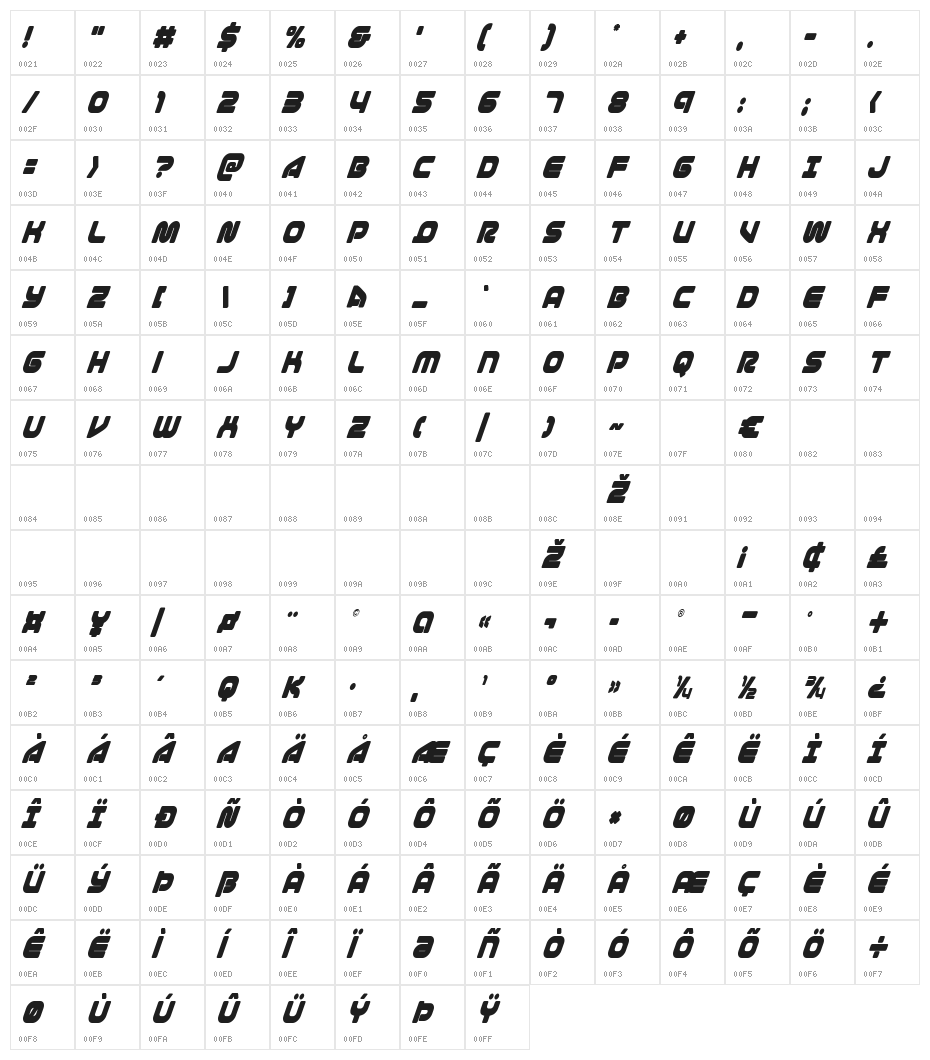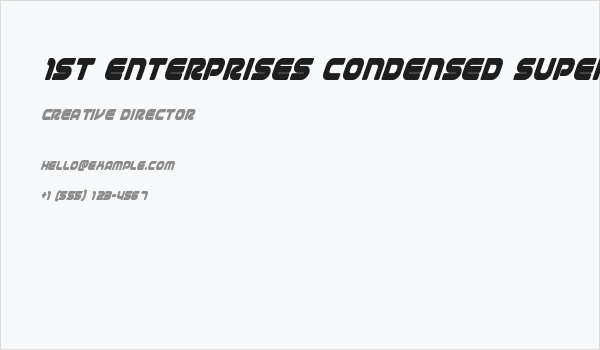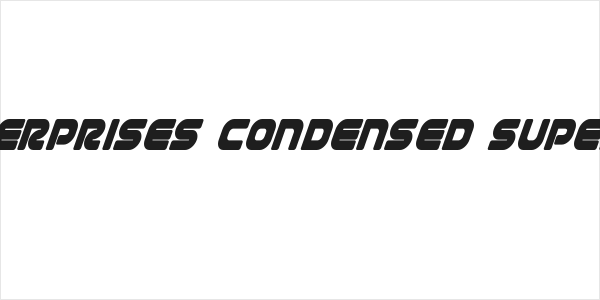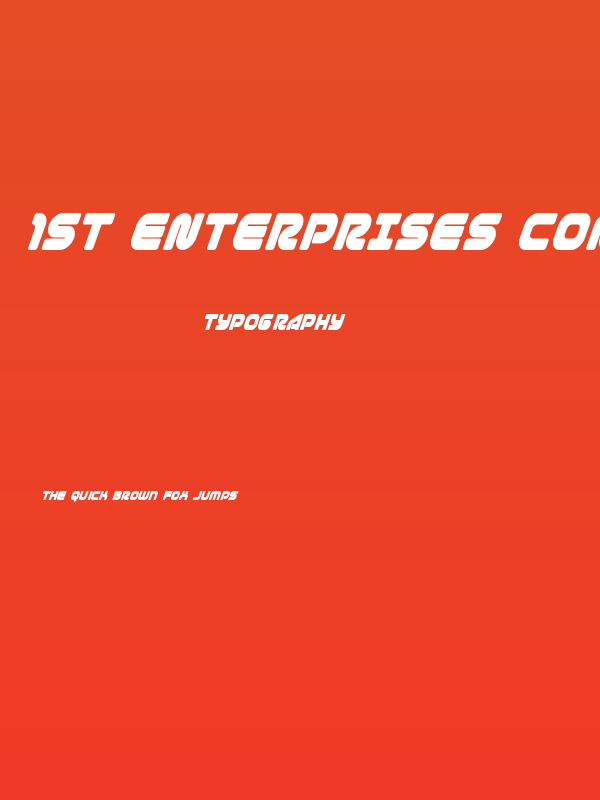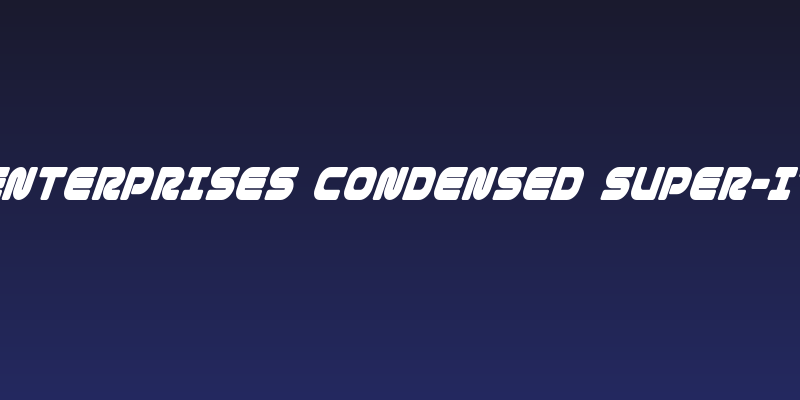
1st Enterprises Condensed Super-Italic Font
1st Enterprises Condensed Super-Italic Description
This font features a bold and dynamic style with a strong italic slant, giving it a sense of motion and energy. The characters are condensed, allowing for efficient use of space while maintaining readability. The strokes are thick and uniform, providing a solid and impactful appearance. This font is well-suited for attention-grabbing headlines and titles, where a modern and assertive look is desired. The overall design is sleek and contemporary, making it ideal for projects that require a bold statement.
| Proposed Projects | Ideal for sports branding, dynamic posters, modern advertising, and bold headlines. |